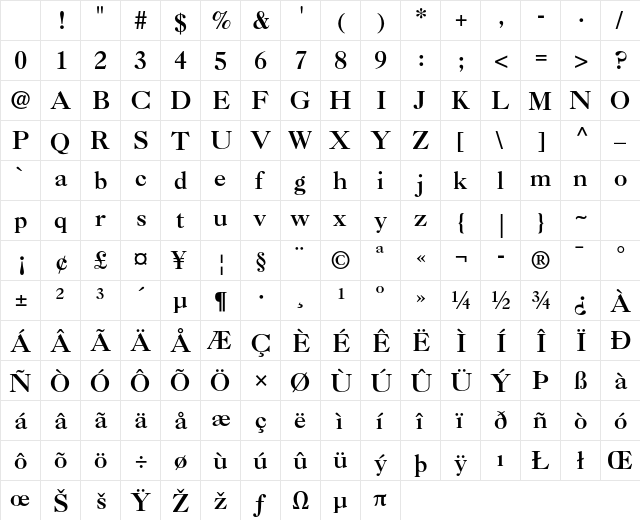
Caslon 3 LT Std Roman
Designer: American Type Founders Staff
Complete Caslon 3 LT Std Roman glyph index. Displaying only characters natively supported by Caslon 3 LT Std Roman font.
Design Context for Caslon 3 LT Std
Caslon 3 LT Std is a composed and adaptable typeface that performs quietly and consistently across a wide range of design contexts. Its slender proportions lend an understated elegance to any composition.